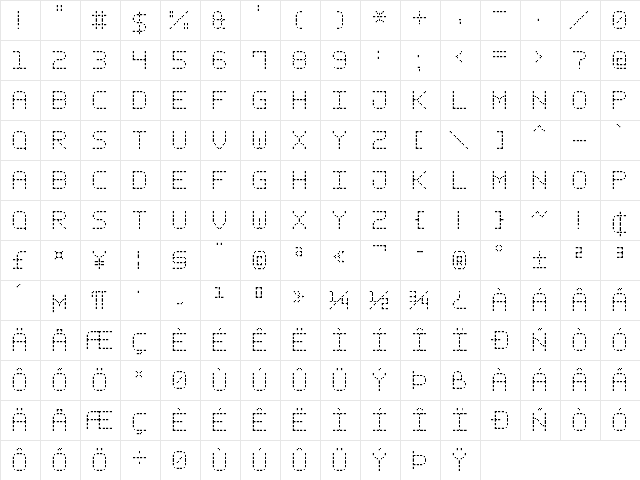
Dash Pixel-7 Regular
| Foundry | Style-7 |
| Designer | Sizenko Alexander |
Design Context for Dash Pixel-7 Typeface
Dash Pixel-7 celebrates the constraints of early digital type, turning pixel geometry into a distinctive and immediately recognisable style.
Well-suited to indie game interfaces, retro computing aesthetics, and pixel art-adjacent design work.